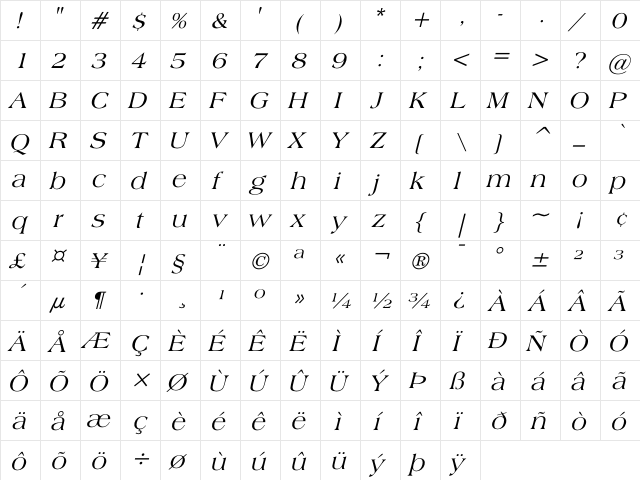
Broadsheet LDO Italic
| Foundry | Luke Owens |
| Designer | Luke Owens |
Design Context for Broadsheet LDO Typeface
Broadsheet LDO takes a measured approach to typography — its balanced proportions and neutral character make it a reliable workhorse for both digital and print work. The slanted form adds forward momentum and visual energy.
Pro Tip: Try Broadsheet LDO for annotation and caption copy alongside an upright companion — the contrast in angle creates a dynamic but ordered typographic system.